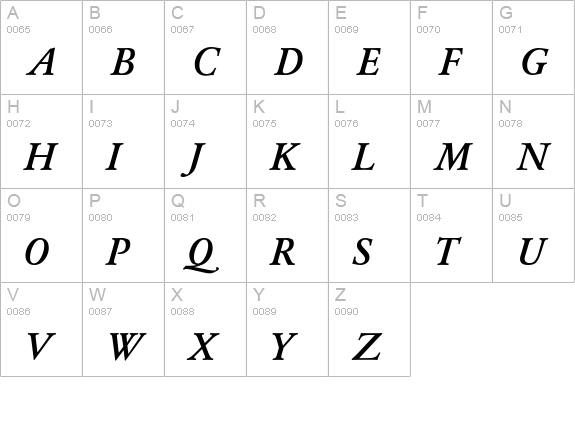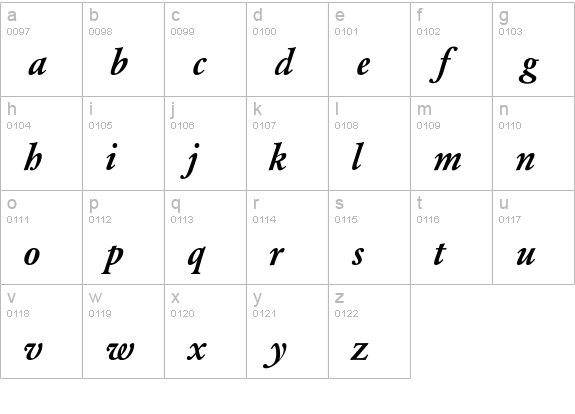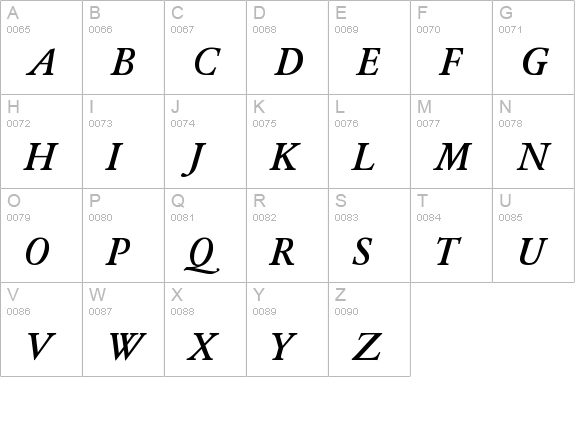
GaramondMediu 2 Font Details
GaramondMedium 2 font embodies elegance and sophistication with its classic yet modern design. With its timeless serifs and balanced proportions, this typeface exudes a sense of refinement and professionalism. The medium weight strikes a perfect balance between readability and style, making it ideal for a wide range of design projects. What sets GaramondMedium 2 font apart is that it is available for free download at FontsMarket.com. This means that you can easily access and use this high-quality font for both personal and commercial purposes without any cost. Whether you are working on a print design, website, or branding project, GaramondMedium 2 font offers versatility and reliability to elevate your work to the next level. Download this exquisite typeface today and add a touch of sophistication to your designs.